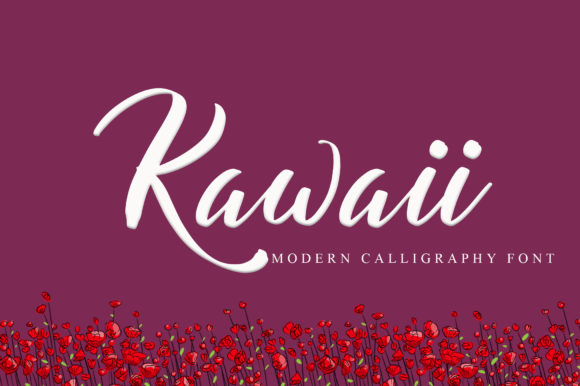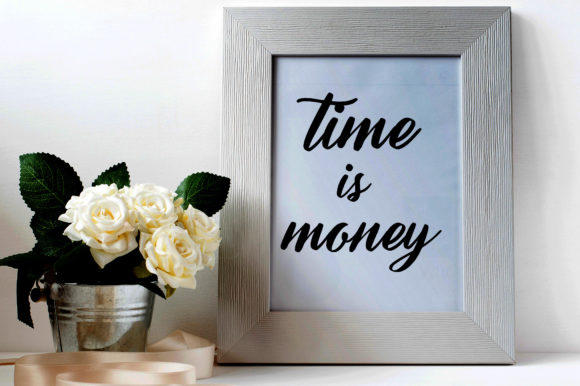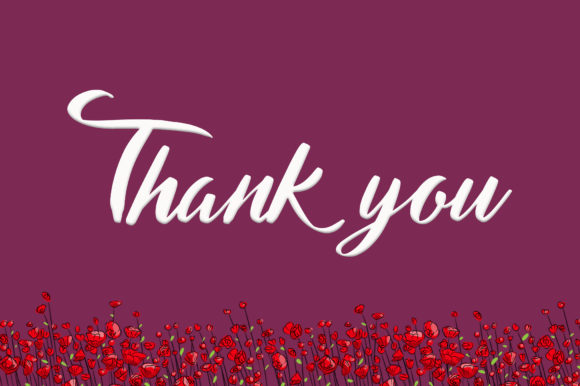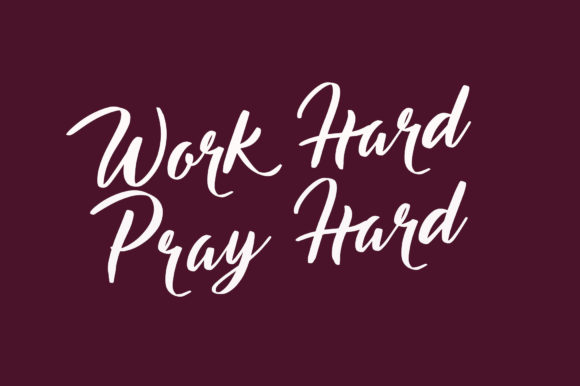
Kawaii Font
About Kawaii Font
Kawaii is a lovely script font featuring charming, playful characters that seem to dance along the baseline. Add this font to your most creative ideas, and notice how it makes them stand out!